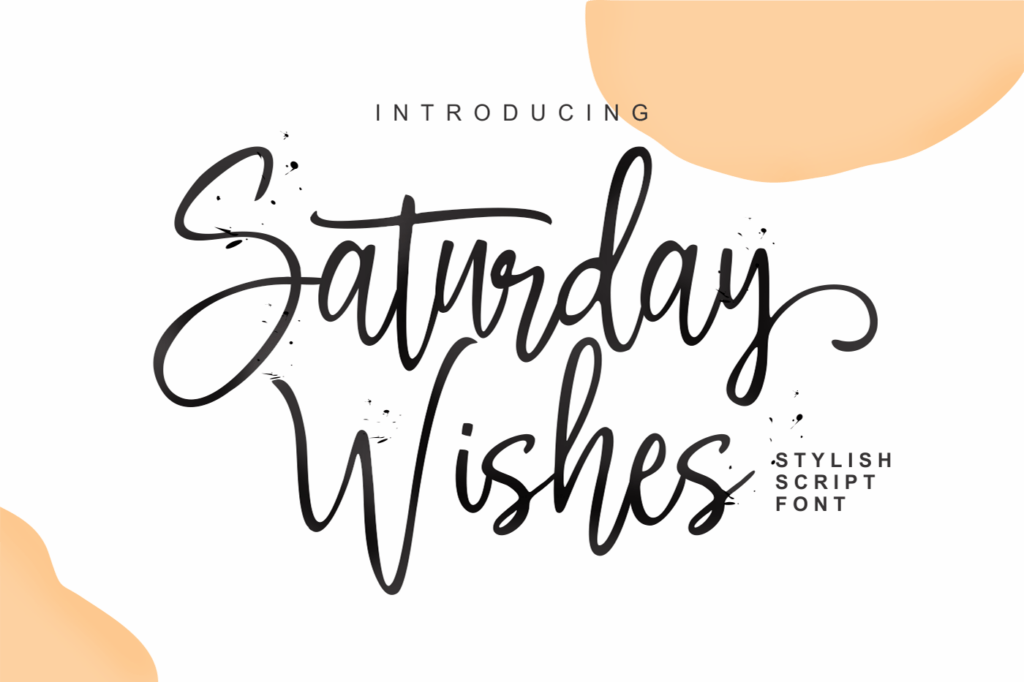
Saturday Wishes Font
Saturday Wishes is an enchanting handwritten font. This versatile script font has a wide spectrum of applications ranging from greeting cards to headlines and is guaranteed to add a romantic feel to your next project.
Saturday Wishes Stylish Handwritten Font